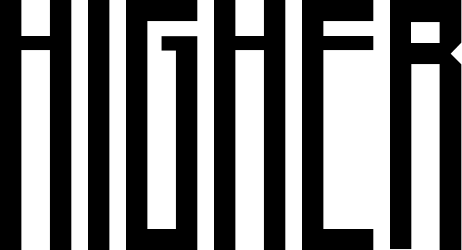
Higher Font
Higher is a font with so many angles and squarish shapes to create a futuristic techno vibe. This square font has multiple purposes like YouTube thumbnails, logotypes, product packaging, posters, social media posts, etc.…
Higher is a font with so many angles and squarish shapes to create a futuristic techno vibe. This square font has multiple purposes like YouTube thumbnails, logotypes, product packaging, posters, social media posts, etc.
This font comes with a compact collection of characters containing the uppercase of the alphabet, the numbers, and very few punctuation marks. In this collection, you won’t find any lowercase.
Higher is a free font made for a student project containing characters (A-Z) and numbers (0-9)